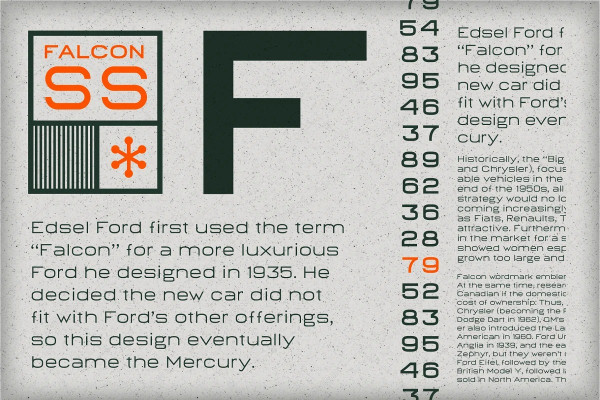
Falcon SS Font
Falcon SS Font is inspired by those type treatments you use to see in the 60s or 70s on home appliances or cars. An elegant vintage typeface with a classic san serif modern feel to it. It comes in three weights, which comes in both extended and regular styles.